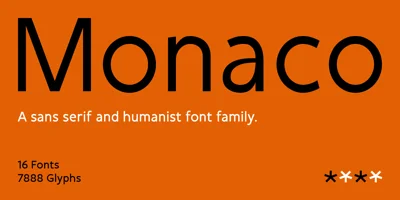
SK Monaco Font
SK Monaco Font is perfect for luxury yacht club branding, high-end casino signage, premium hospitality identities, exclusive resort marketing, upscale automotive dealerships, luxury fashion boutiques, elite financial services, and sophisticated entertainment venues.
SK Monaco Font is exciting because it embodies the ultimate expression of luxury and sophistication through its refined character design that captures the glamorous essence of the French Riviera and the exclusive elegance of Monaco's prestigious lifestyle. Its opulent styling and cosmopolitan appeal make it the perfect choice for brands that want to communicate exclusivity, wealth, and the sophisticated refinement of international luxury culture.
The SK Monaco Font family includes multiple luxury variations: SK Monaco Light, SK Monaco Regular, SK Monaco Medium, SK Monaco Bold, SK Monaco Italic, and SK Monaco Display, along with elegant ornamental elements and luxury symbols, providing designers with comprehensive tools for creating authentic high-end and exclusive brand experiences.
When seeking premium luxury typography solutions, SK Monaco Font stands out as the ultimate choice for designers working on ultra-luxury and exclusive lifestyle projects that require the highest levels of sophistication and prestigious appeal. This exceptional typeface embodies the essence of Monaco's legendary luxury while offering the technical precision that contemporary premium brands demand. The font's cosmopolitan character and exclusive authenticity create immediate recognition among affluent audiences who appreciate the finest quality and sophisticated lifestyle choices.
Luxury brand professionals consistently rely on SK Monaco Font for projects requiring authentic luxury sophistication and prestigious visual impact. Its meticulously crafted letterforms feature cosmopolitan influences that work exceptionally well in both intimate luxury boutique environments and grand casino resort displays. The font's ability to convey exclusivity and international sophistication while maintaining perfect readability makes it invaluable for comprehensive brand identity systems in the luxury hospitality, premium automotive, and exclusive lifestyle sectors.
Whether you're developing ultra-luxury resort identities, creating premium casino marketing materials, or designing exclusive membership club communications, SK Monaco Font delivers the authentic luxury character and cosmopolitan appeal that resonates with discerning clientele who demand the highest standards of sophistication and exclusivity. Its prestigious heritage and refined elegance ensure your projects achieve the exclusive status that defines truly exceptional luxury experiences and premium lifestyle brands.